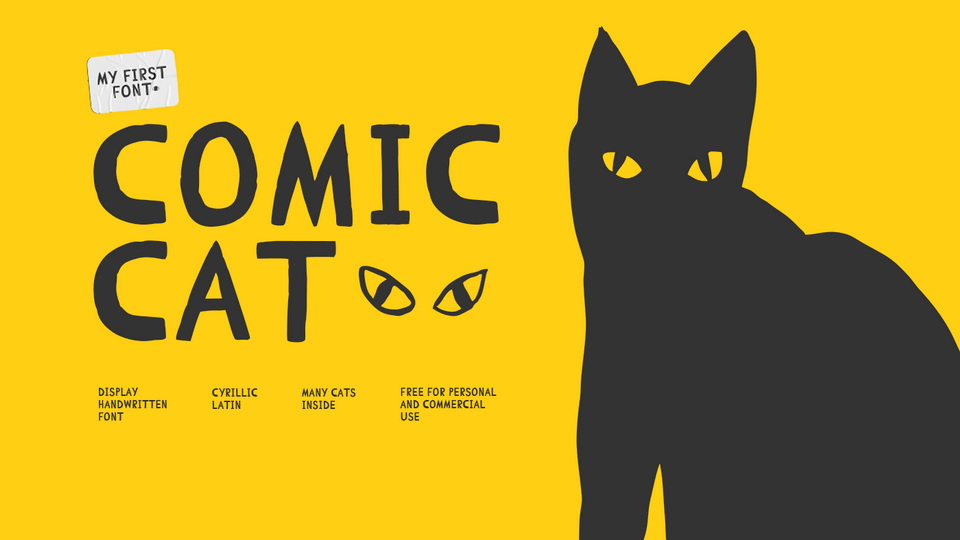
Download Comic CAT font, a fun and playful handwritten display typeface with many cats inside. Comic CAT will be perfect for comics, games, posters or anything that requires a cool and happiness look.
Designer: Vitaly Lazarenko